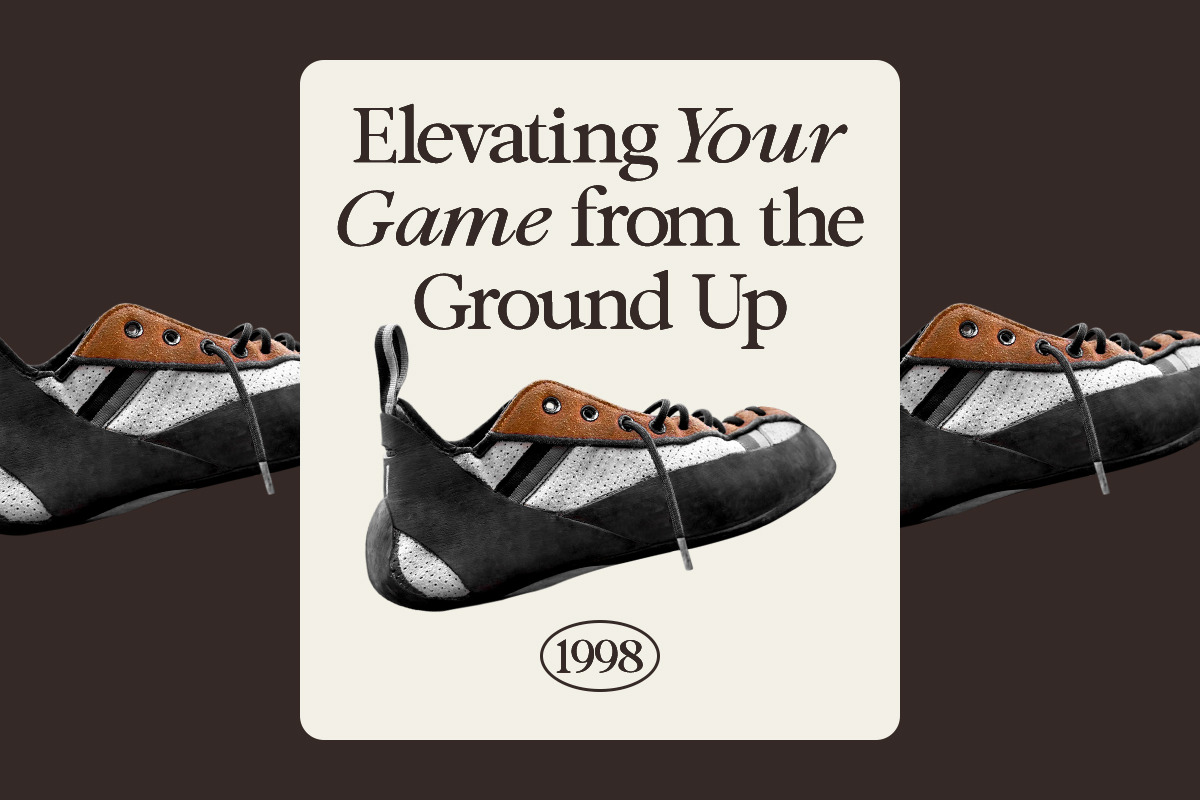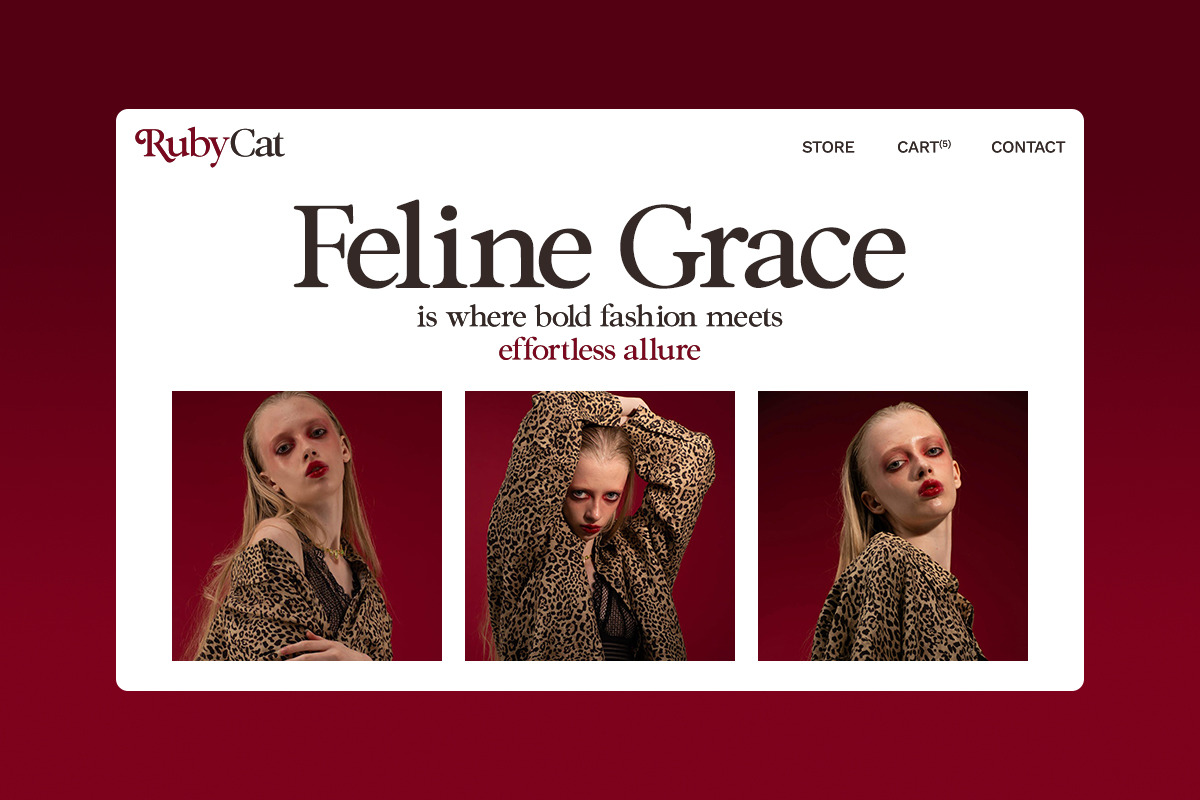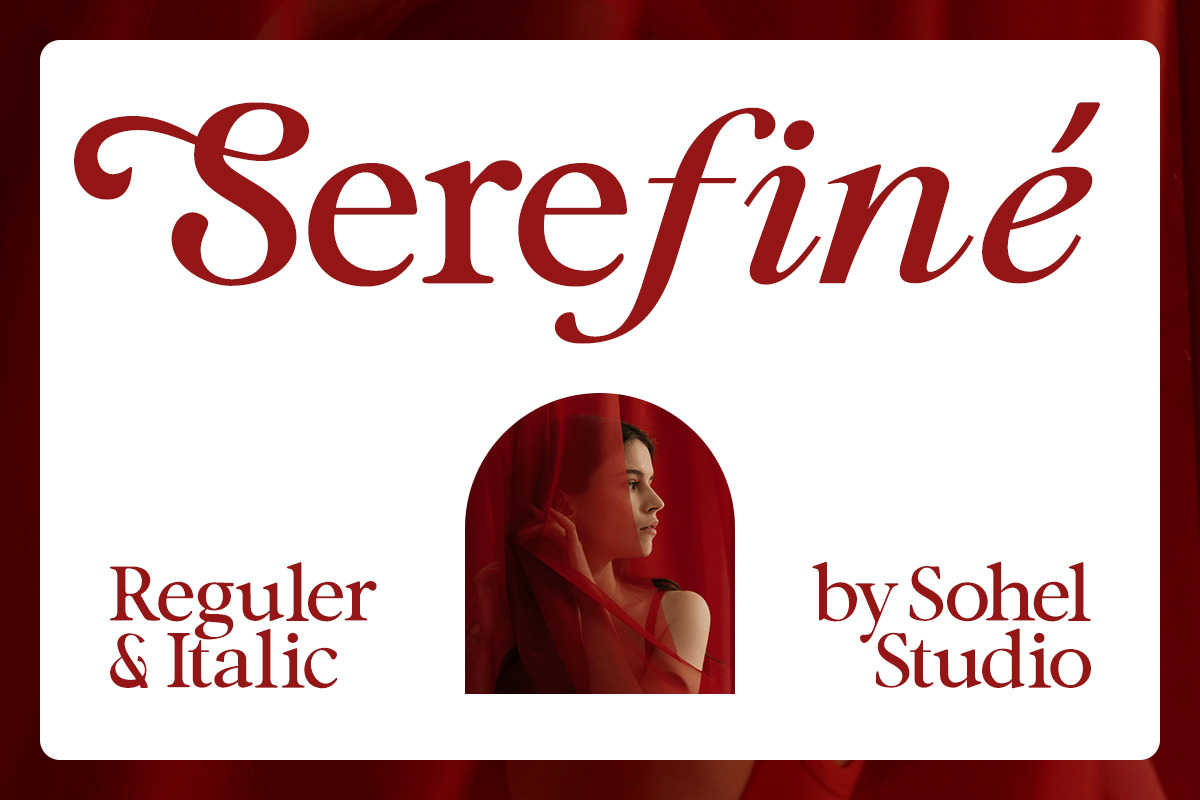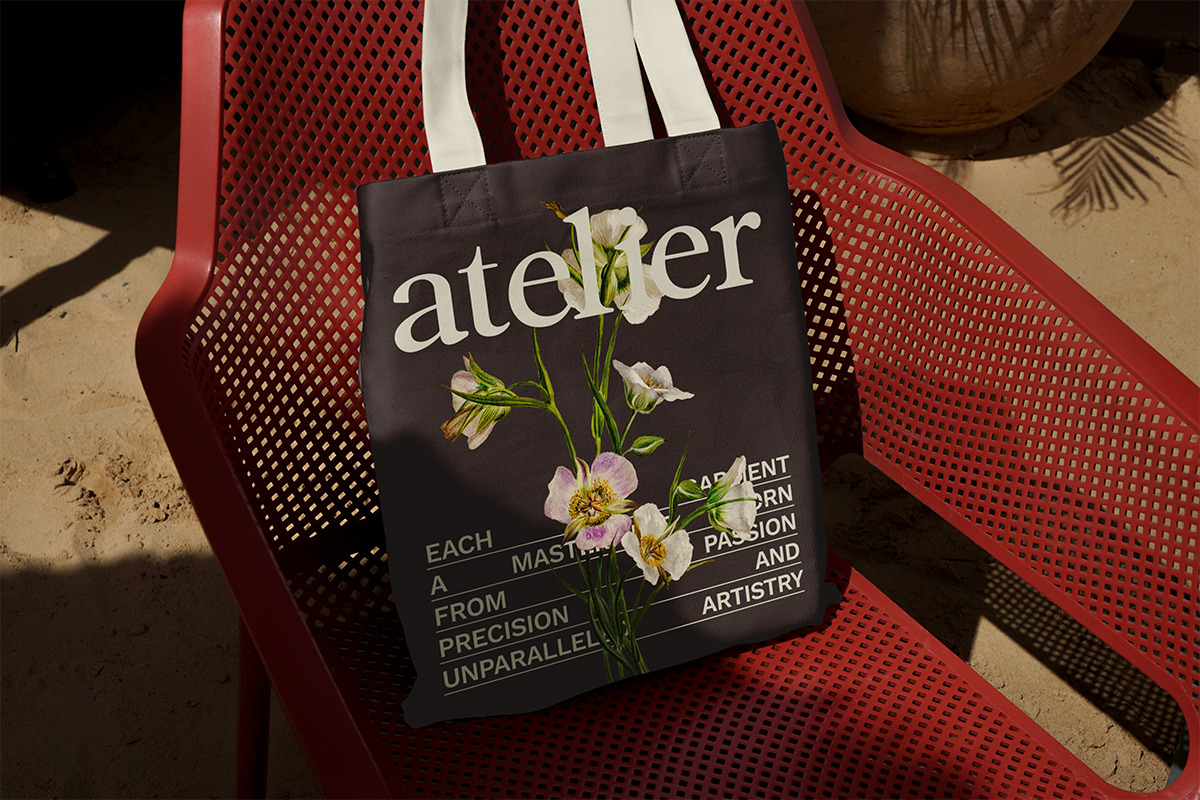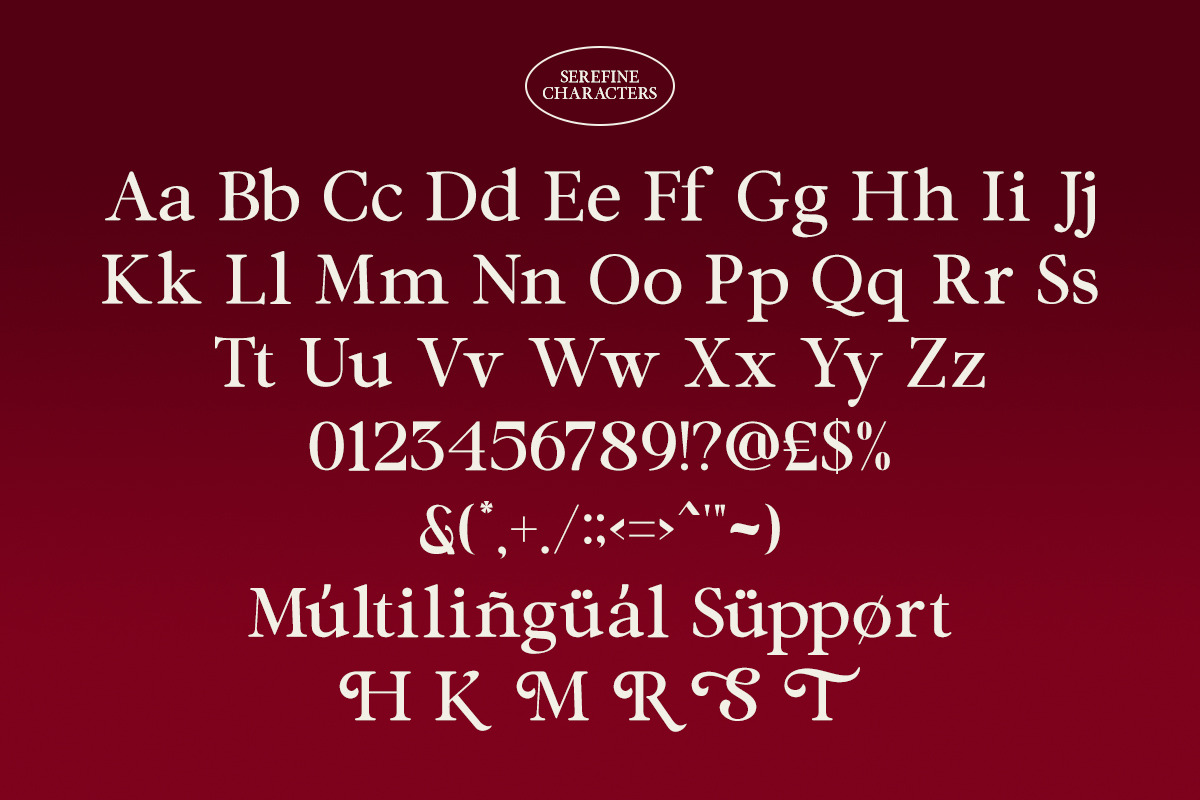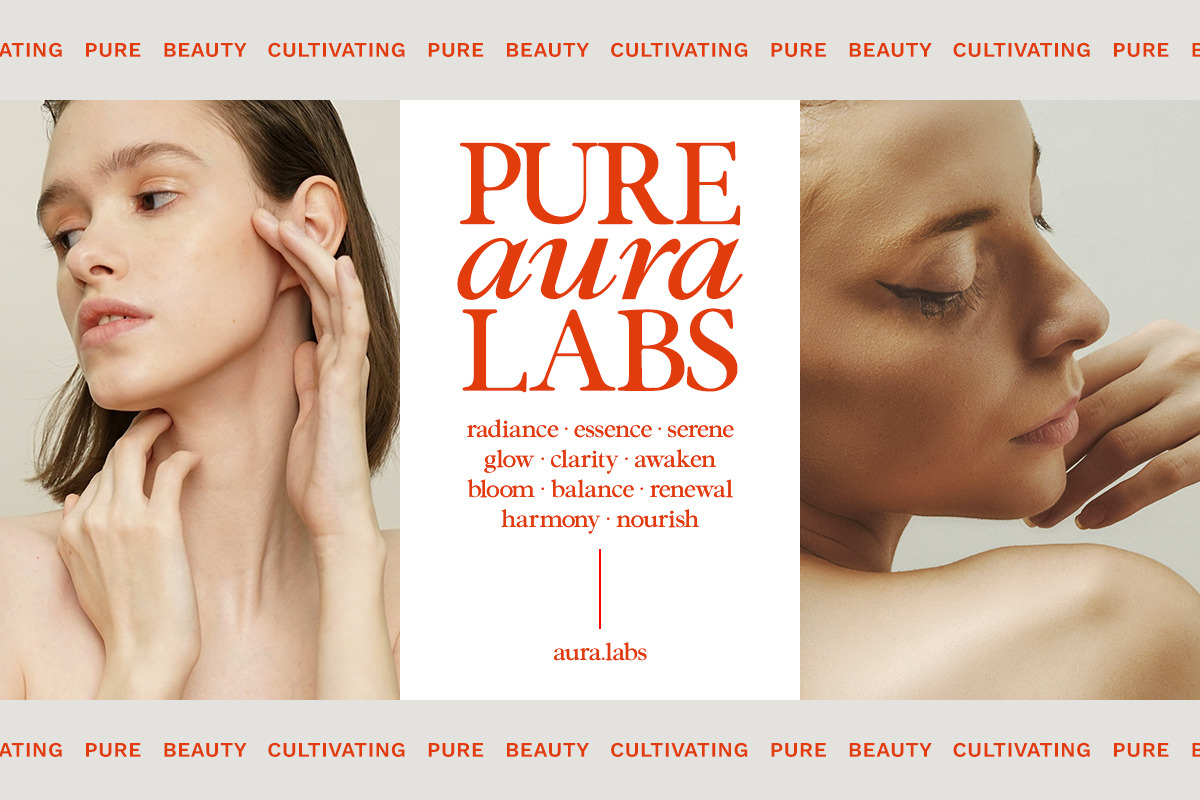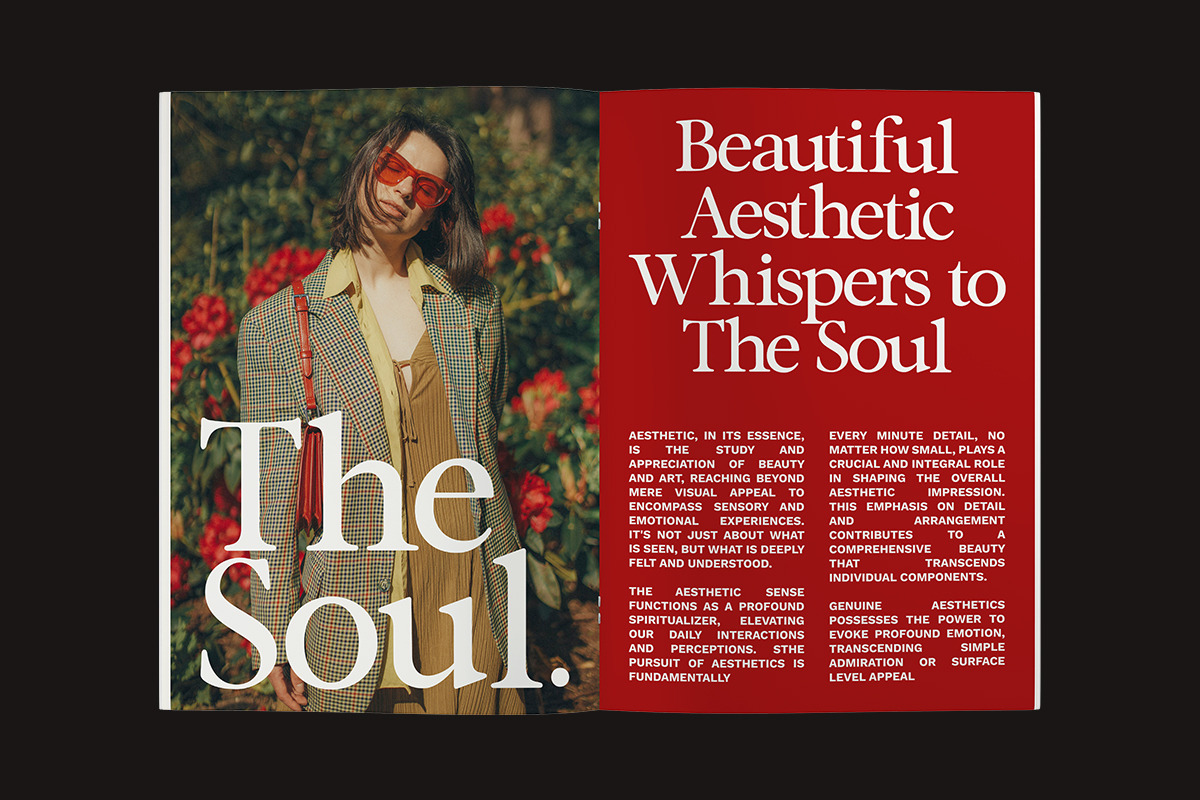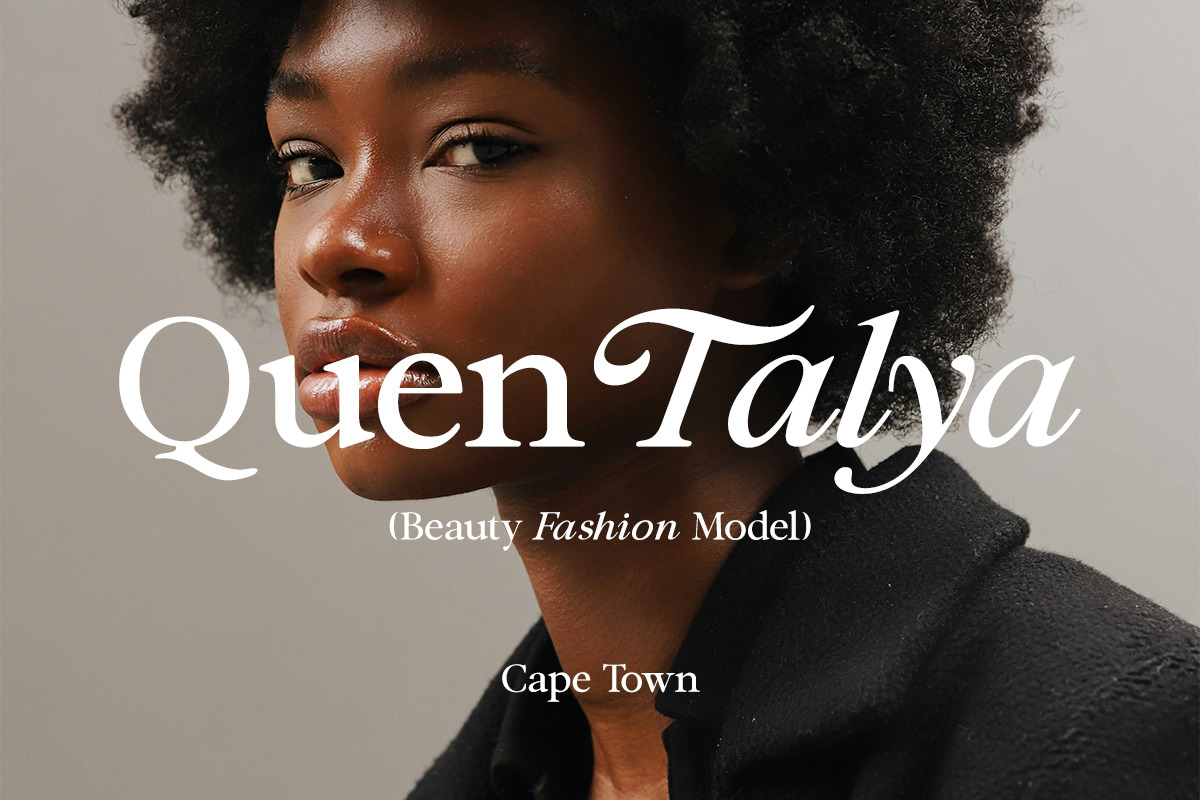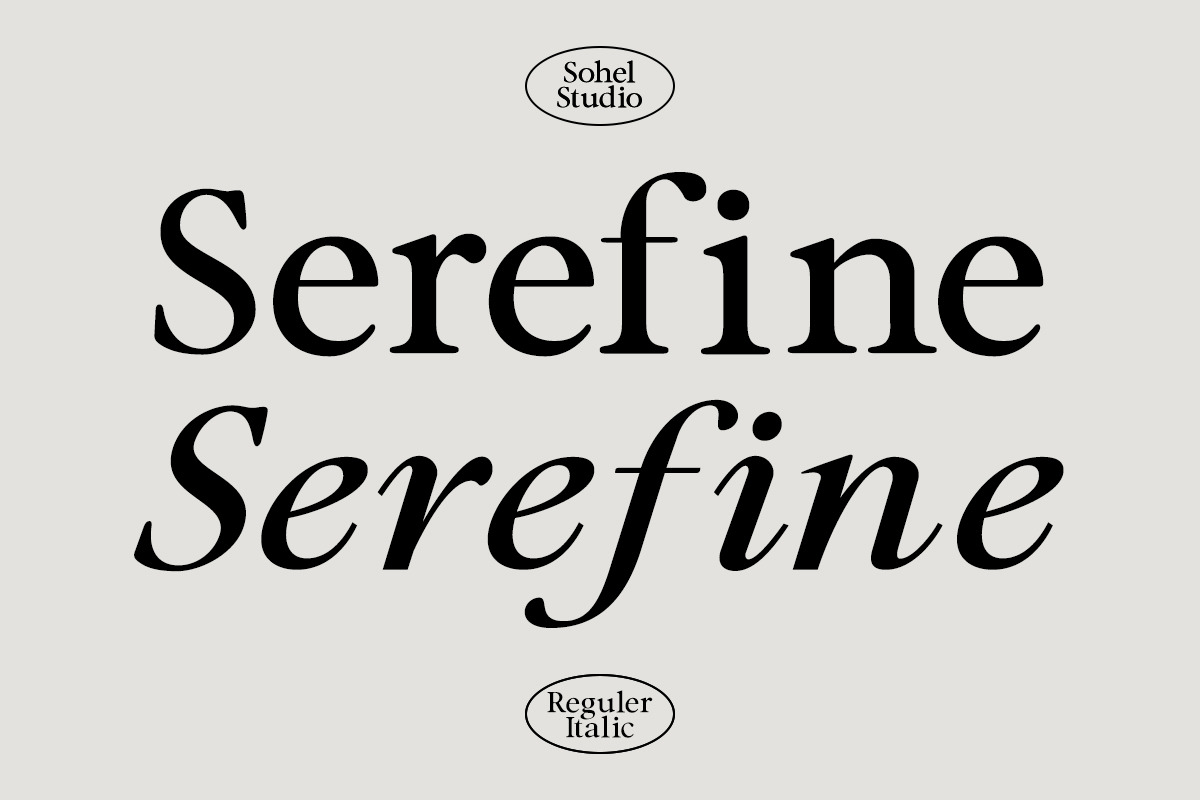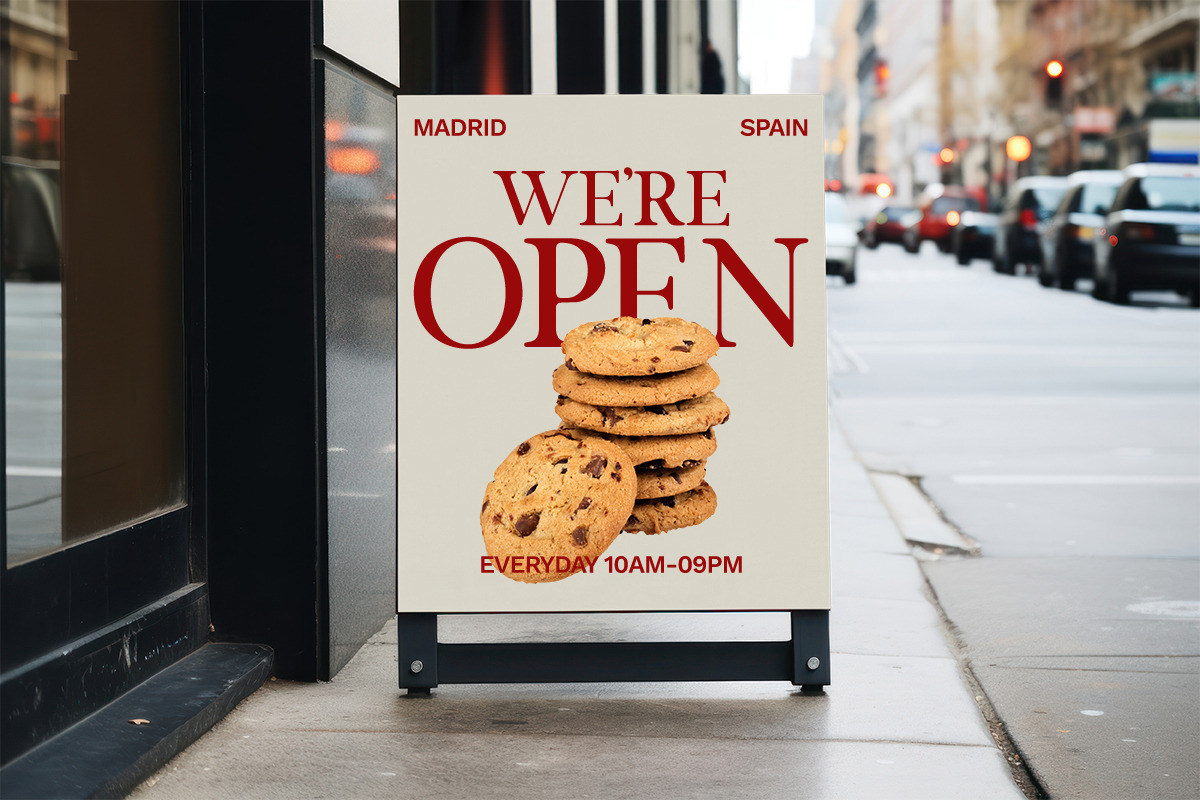
Serefine – Elegant & Romantic Serif
Elegant. Feminine. Editorial-Ready.
Serefine is a high-contrast serif typeface that blends classic elegance with modern sophistication. With its graceful curves and refined details, Serefine delivers a romantic yet confident vibe — designed to elevate fashion brands, lifestyle content, and luxury packaging.
Whether you're working on a stylish Instagram post, a premium logo, or a bridal editorial spread, Serefine adds timeless charm and elevated polish to your designs. This font is made for designers who want to make a statement with every headline and word.
Serefine’s structure features elegant serif terminals, smooth stroke transitions, and gentle curvature. It includes both Regular and Italic styles, along with a beautiful set of swash alternates to create striking typographic compositions with minimal effort.
What You’ll Love About Serefine:
Elegant Serif Style – Modern yet timeless letterforms with soft curves and a romantic flair.
2 Styles Included – Regular and Italic to give you full creative flexibility.
Gorgeous Alternates – Swashy ligatures and alternate characters for decorative finesse. Editorial Quality – Ideal for magazine layouts, fashion lookbooks, or wedding stationery.
Perfect for Branding – Instantly adds a luxurious and feminine tone to logos, packaging, and identity work.
High-Contrast Design – Clean, stylish contrast perfect for headlines and sophisticated messaging.
Versatile Usage – From Instagram quotes to brand mood boards and lifestyle websites.